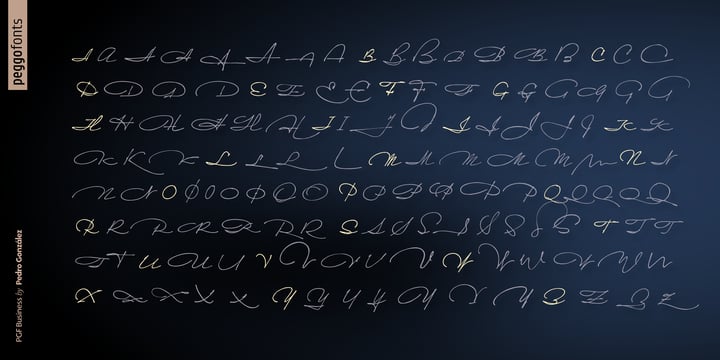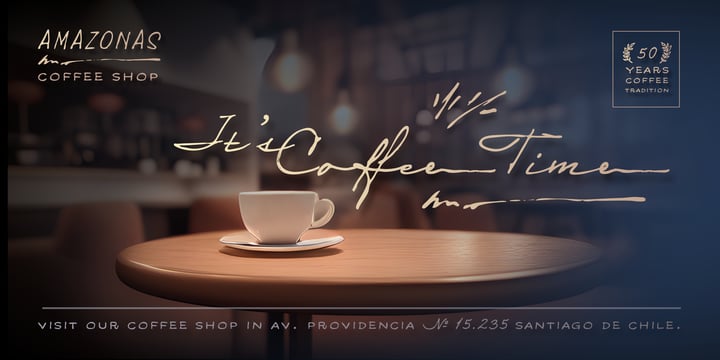
PGF Business
Die Schriftfamilie PGF Business wurde von Pedro González entworfen und von PeGGO Fonts veröffentlicht. PGF Business enthält 8 Stile und Familienpaketoptionen.
PGF Business inspired by script used on maps, spencerian aka "Business Script" and manual and confident signature strokes. Organized in 5 individual styles, for making it easier to use, and gathered all at one in a bigger unique file called "PGF Bussiness Full" where you will find way much more options, but requires a more advance editing skill to use. Accompained with a useful set of Dingbats and a set of complementary Ornaments to enhance more versatile typographic compositions.
“Peggo Fonts” is a Chilean based foundry, founded in 2002 by Pedro González, with more than 20 years doing fonts for you and more than 14 years on the market, on early stages Peggo Fonts started as a calligraphy design studio, so, we still love doing (and teaching) “real calligraphy” that we take as inspiration, we still love doing lettering and do technical type drawings as detailed and deep reference for our type design, always through a critical and fresh scope, analyzing and solving our constant global needs for design.We put all our energy on fine tunning a balance between function and aesthetics for the sake of better design and a more pleasant reading experience. We work on do optical adjustments, on programing useful opentype features and finding innovative design concepts.